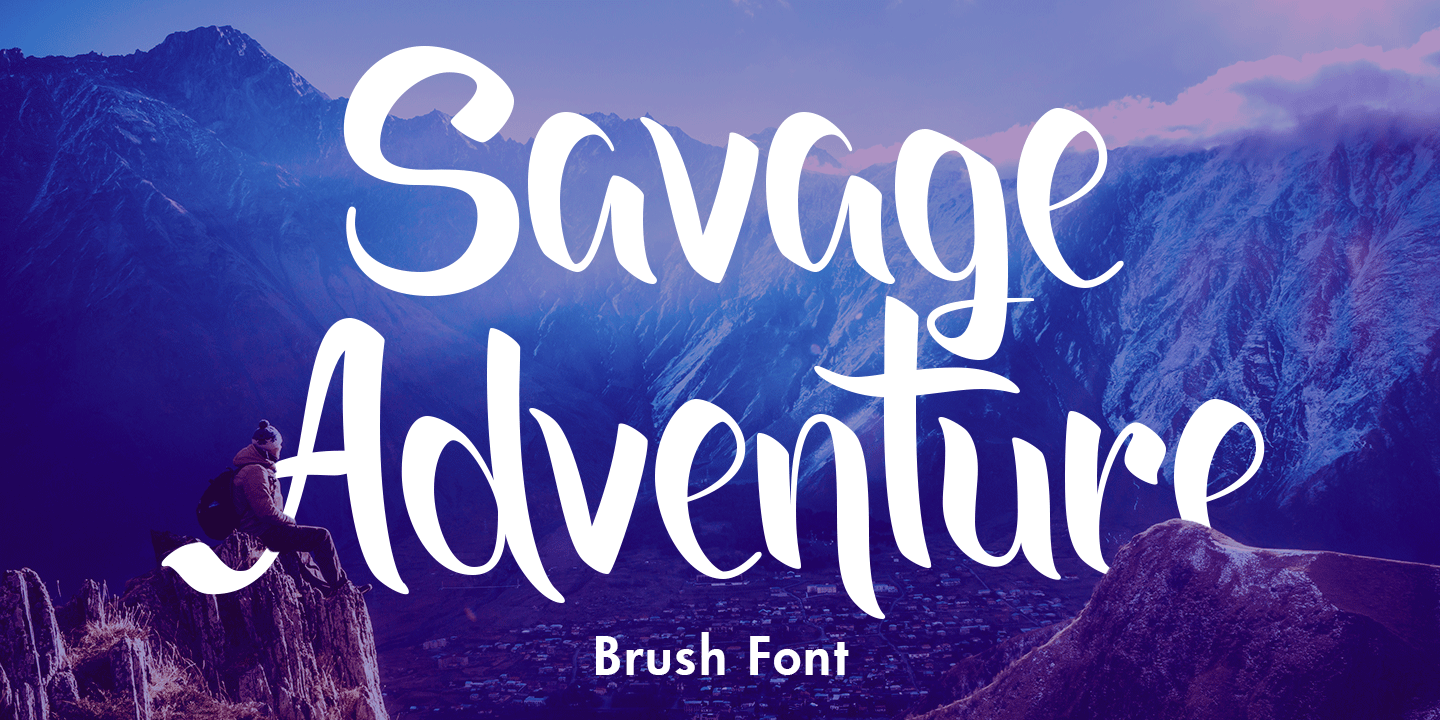
The Savage Adventure Font is an excellent choice for designs that aim for a bold, rugged, and distinctly adventurous aesthetic, reminiscent of wild expeditions and untamed landscapes. Imagine it thundering across a movie poster for an action-packed blockbuster, adding a raw, untamed edge to extreme sports branding, or bringing an energetic, dynamic feel to outdoor gear advertisements. It's also perfectly suited for impactful posters, rebellious streetwear designs, gaming titles that demand attention, and any project where you want to convey a sense of freedom, strength, and an untamed spirit. Its often sturdy, textured forms, and powerful presence make it ideal for conveying confidence and a memorable statement.
What makes the Savage Adventure Font so exciting is its ability to instantly capture the essence of raw energy and unbridled determination. It frequently features sharp angles, dramatic strokes, or a textured finish that gives it a unique visual intensity and a strong graphic appeal. This font has a vibrant and assertive personality that can instantly elevate your design, making it feel both visceral and remarkably artistic. It’s designed to grab attention and project an image of daring independence, ensuring your message is not just seen, but felt with significant impact.
The Savage Adventure Font family typically might include a range of impactful weights, often focusing on a heavy or ultra-bold presence to maximize its inherent strength and visual punch. While it might not always have an extensive range of weights, its power lies in its distinctive visual style. Some variations might include stylistic alternates or unique ligatures that enhance its raw or aggressive aesthetic. These variations empower designers to create a truly dominant and memorable display, ensuring the Savage Adventure Font Free Download can adapt to a wide array of projects while maintaining its signature, untamed charm.